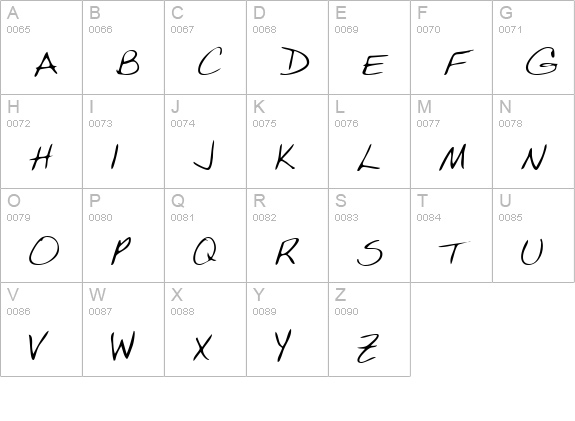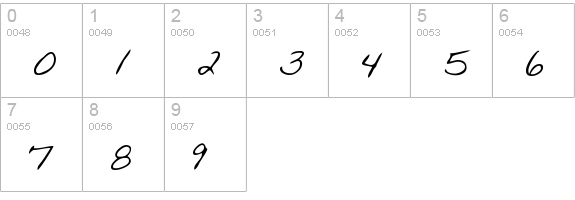
PatriciasHand Regular Font Details
PatriciasHand Regular is the standard, neutral variant in the PatriciasHand typeface family \xE2\x80\x94 well suited to general body text, paragraphs, and standard typographic work.
Introducing PatriciasHand Regular font, a beautifully crafted typeface that exudes a sense of elegance and charm. This font is perfect for adding a personal touch to your designs, whether it be on invitations, greeting cards, or even branding materials. With its delicate and graceful strokes, PatriciasHand Regular font brings a touch of sophistication to any project. Its smooth lines and flowing curves give your text a handwritten feel, adding a unique and whimsical element to your designs. But what truly sets PatriciasHand Regular font apart is that it is freely available to download at FontsMarket.com. Yes, you read that right! This stunning font can be yours, at no cost at all. FontsMarket.com is proud to offer this font as a gift to designers, allowing you to effortlessly elevate your creations without breaking the bank. Whether you're a professional designer or a creative enthusiast, PatriciasHand Regular font is sure to become a go-to choice in your font collection. Its versatility and timeless appeal make it suitable for a wide range of projects, from wedding invitations to social media graphics. So why wait? Head over to FontsMarket.com now and indulge in the beauty of PatriciasHand Regular font. Download it for free and watch your designs come to life with its exquisite charm. Don't miss out on this amazing opportunity to enhance your creativity and make a lasting impression with this captivating typeface.